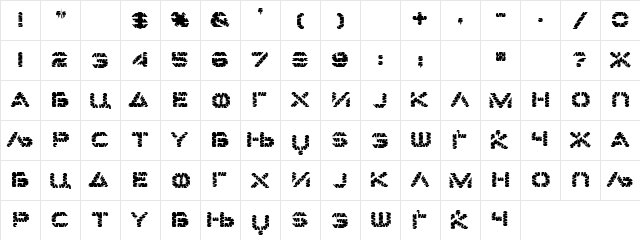
X_Spirala Black
Design Context for X_Spirala Typeface
X_Spirala is a composed and adaptable typeface that performs quietly and consistently across a wide range of design contexts.
Pro Tip: Use X_Spirala in both headline and body roles to test its range before committing to a single application.